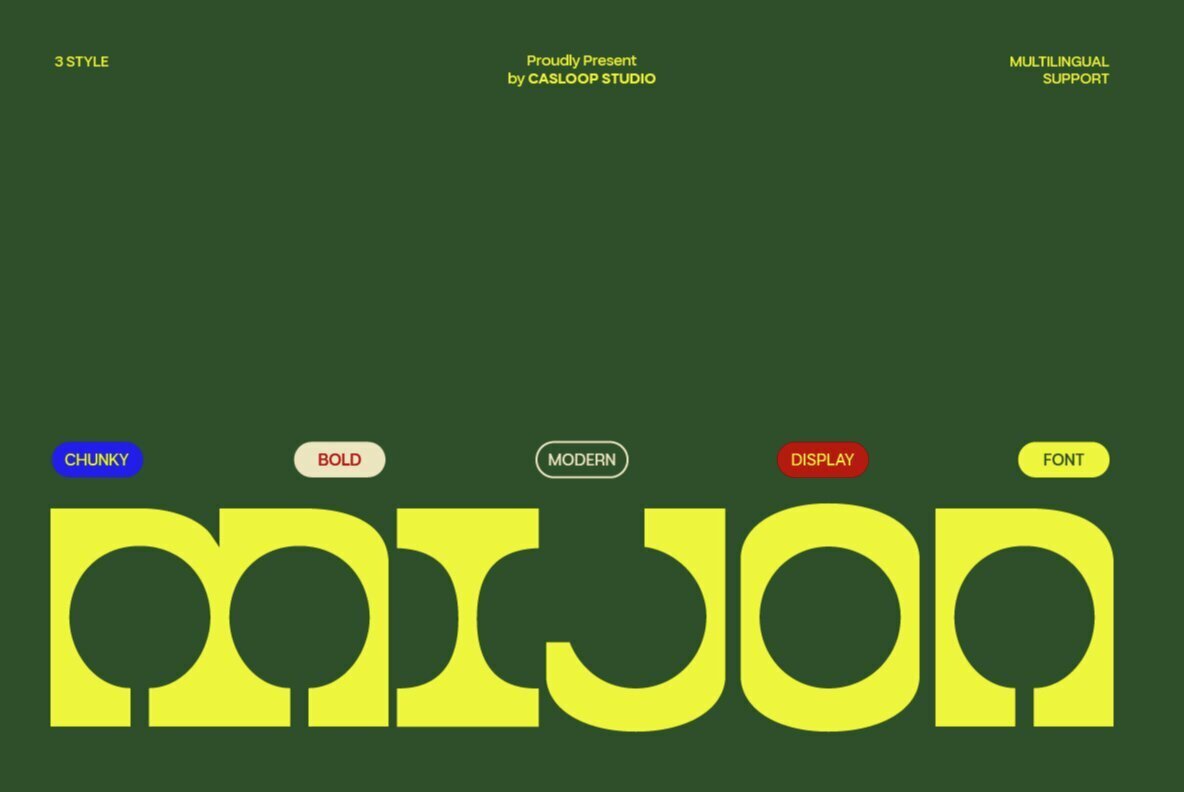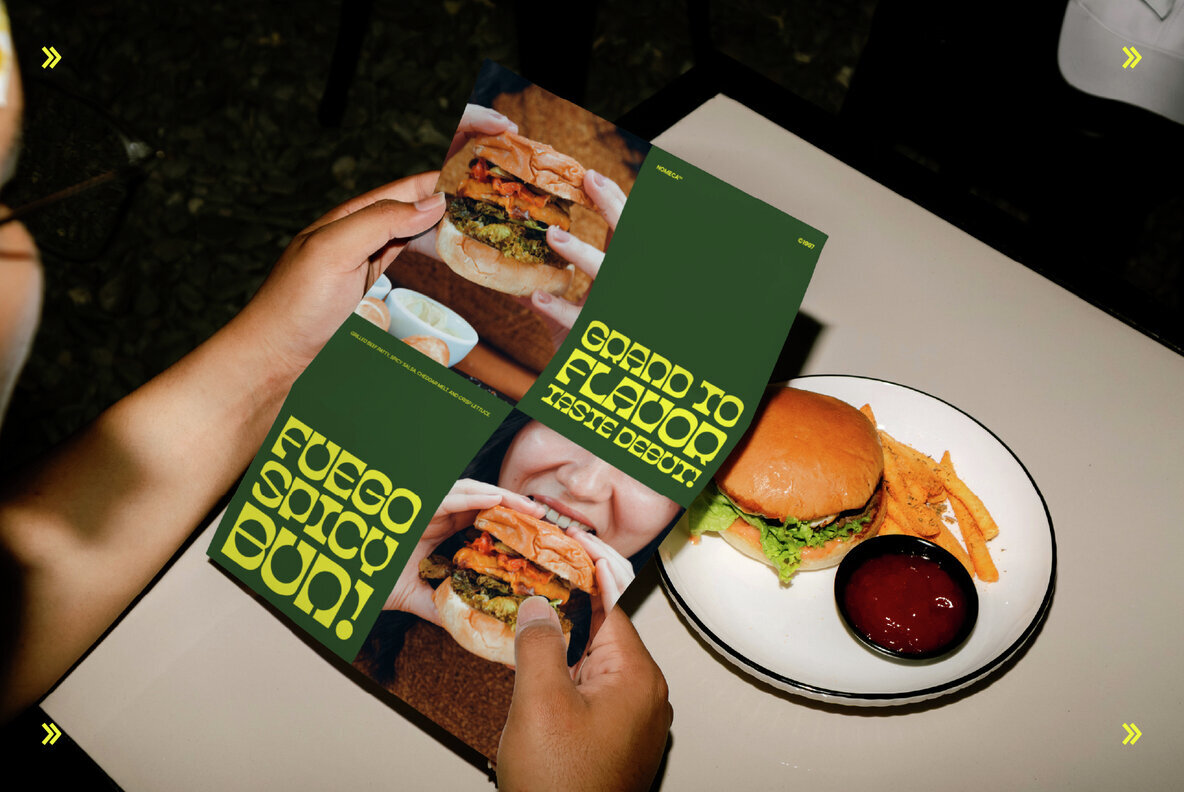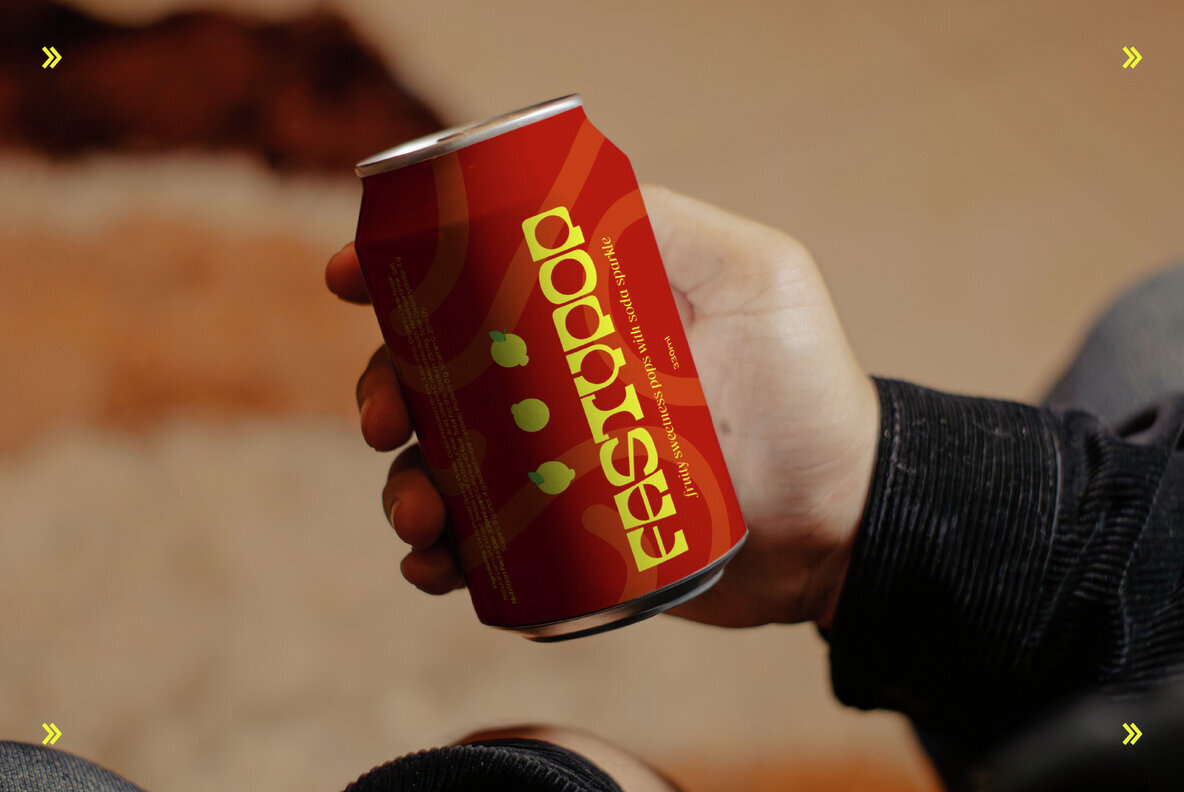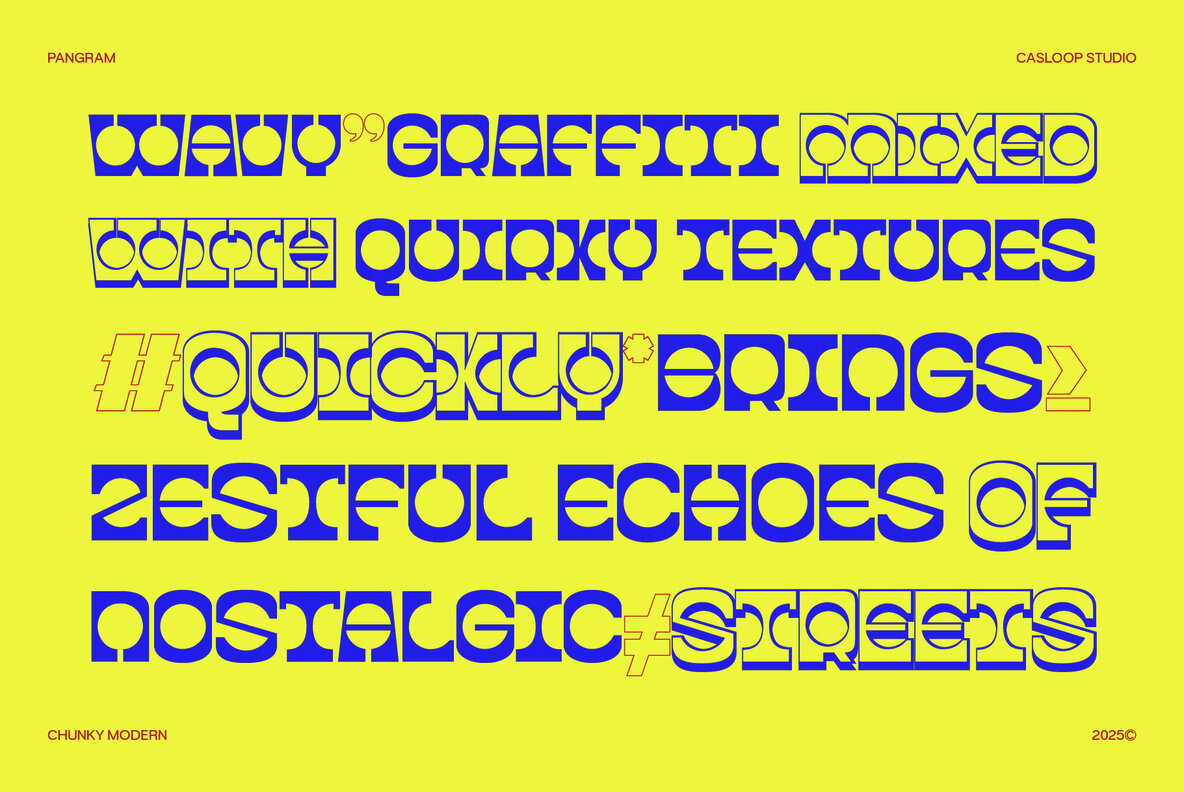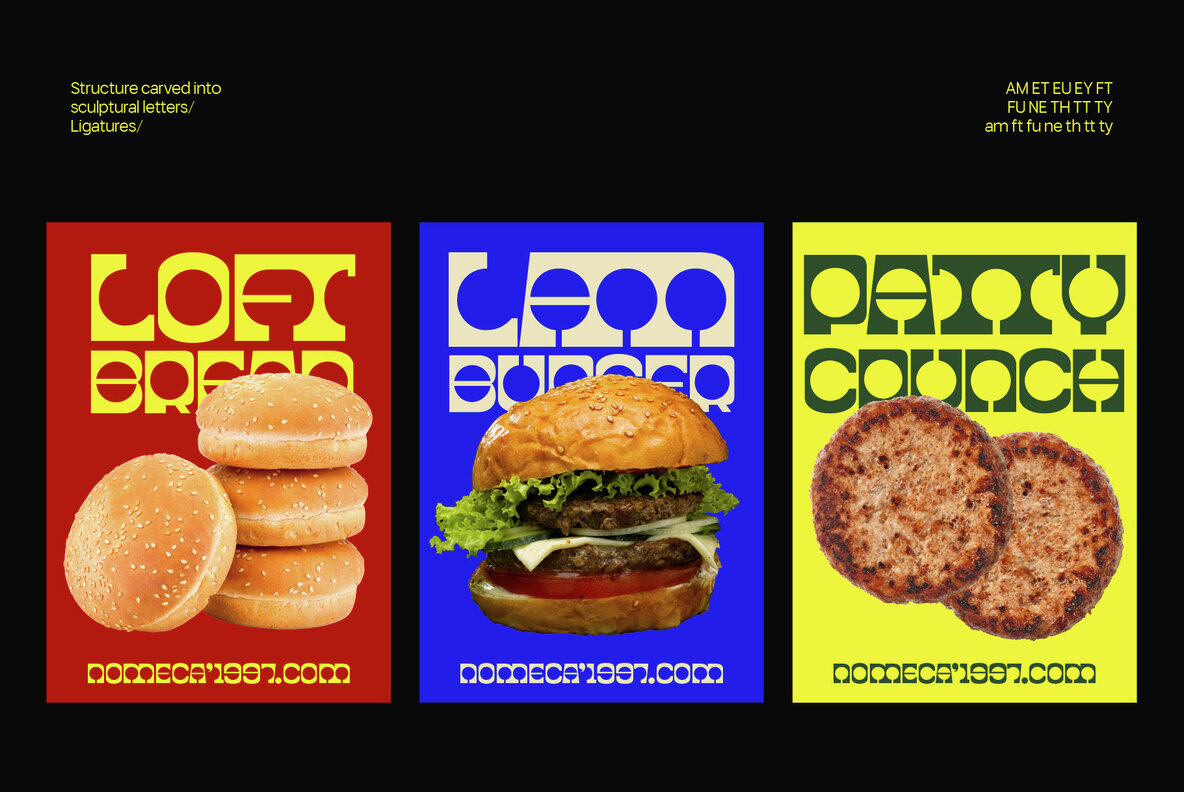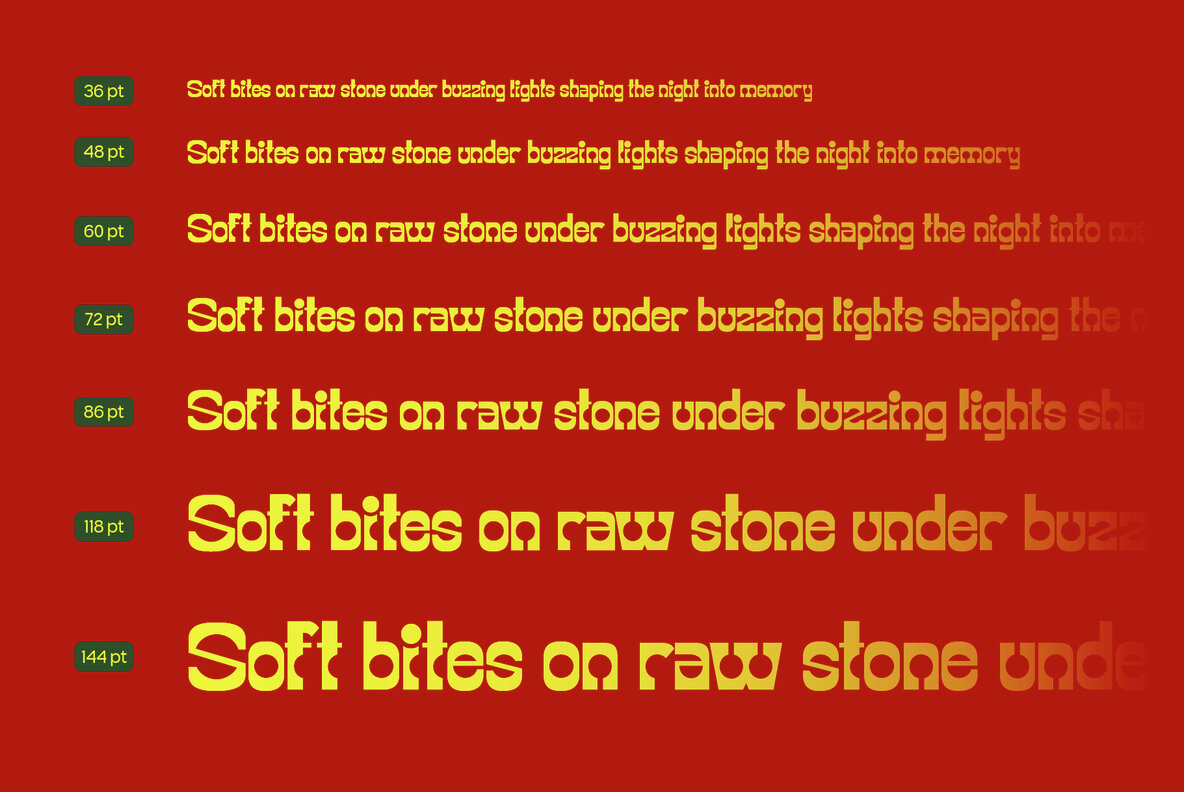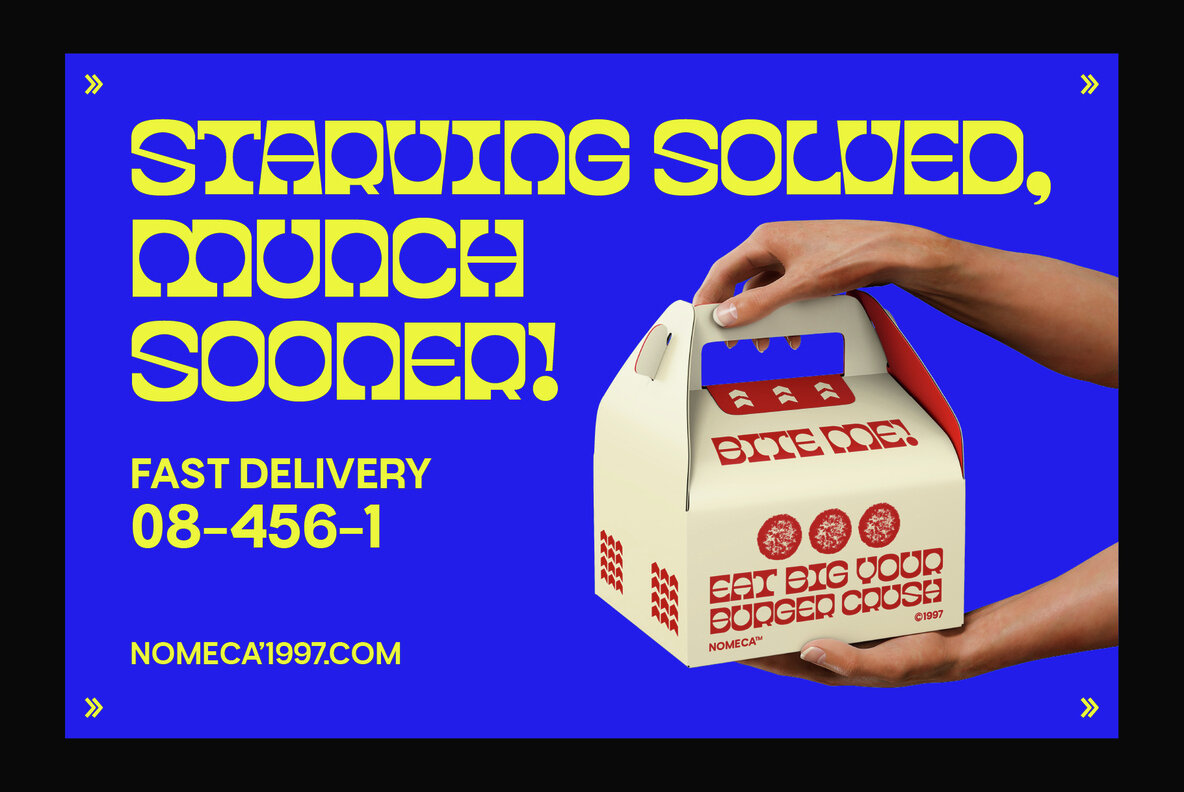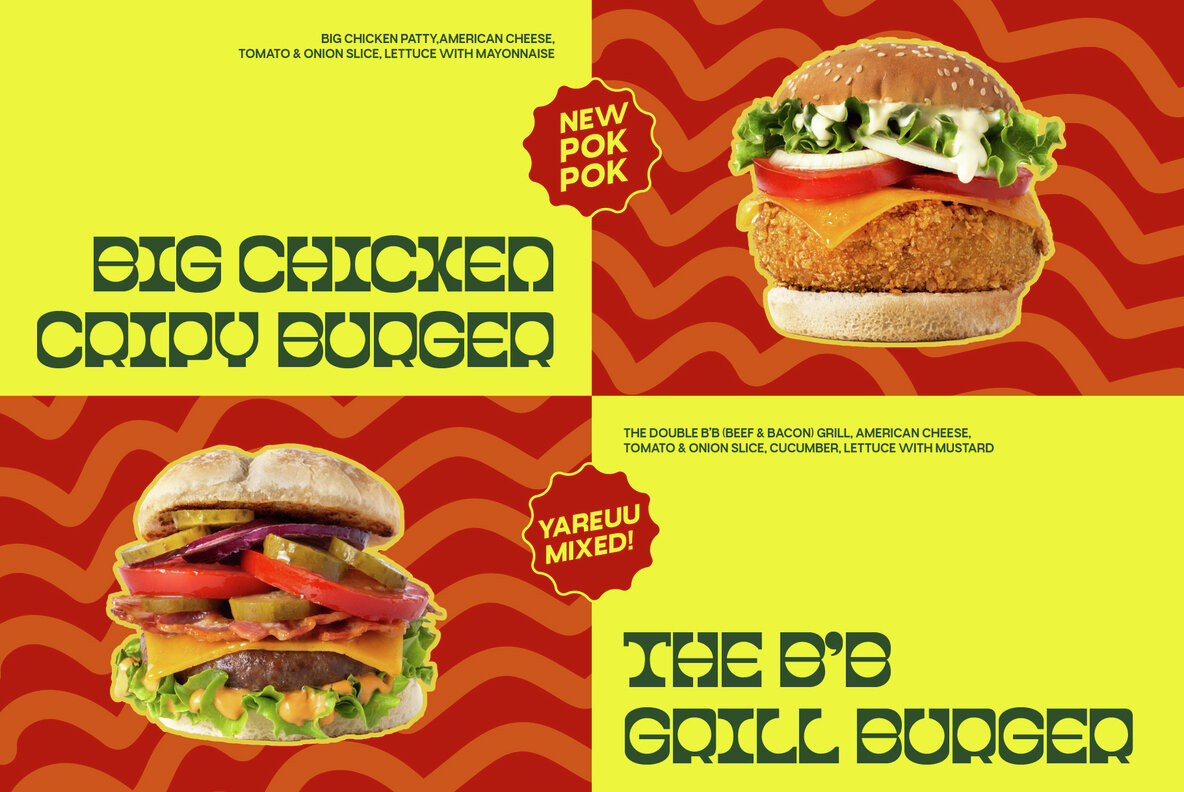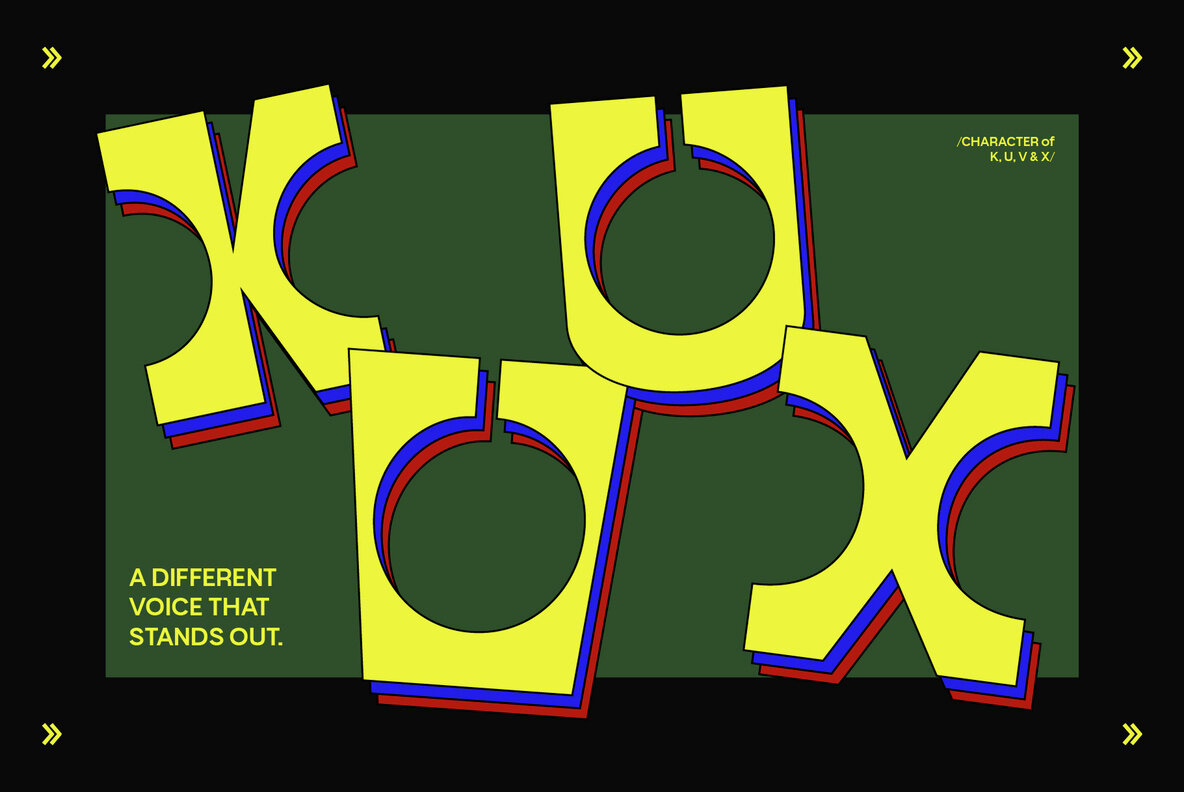
Mijon Font
Mijon Bold
Mijon Inline
Mijon Shadow
MIJON is a statement-making display sans-serif crafted for brands that crave attention. Its oversized characters and unique cuts deliver a visual punch often compared to a boisterous cheer—confident, vibrant, and unapologetically bold. This typeface is ideal for food, beverage, and lifestyle branding that demands center stage. MIJON combines chunky geometry with modern clarity, ensuring your messages are impactful while remaining adaptable to today's creative preferences. The standout characters such as K, U, V, and X inject a lively and daring spirit into even the simplest headlines, effortlessly elevating them into memorable brand assertions. Use seamlessly with Adobe Illustrator, Photoshop, Affinity, Figma, Canva, and Kittl. Featuring three styles—Inline, Regular, and Shadow—alongside a variable font option, MIJON transitions effortlessly from retro-boldness to contemporary minimalism. Its multilingual Extended Latin support welcomes a global audience, while its appetite-inducing aesthetics ensure a lasting impression. From burger boxes to billboard headlines, MIJON fuels your brand with chunky vigor and playful boldness.MIJON: Bold Display Sans for Unforgettable Branding